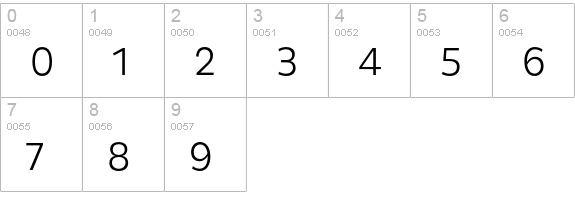
Pluto Sans Cond Light is a refined, elegant, condensed-width variant in the Pluto typeface family \xE2\x80\x94 well suited to elegant body text, refined sub-headings, and luxury branding.
Pluto Sans Cond Light font is a modern and sleek typeface that exudes elegance and sophistication. Its clean lines and minimalistic design make it perfect for a wide range of projects, from branding and advertising to editorial and web design. This versatile font is ideal for creating a clean and contemporary look, with its light weight adding a touch of airiness and sophistication to any layout. Whether you're designing a logo, a website, or a brochure, Pluto Sans Cond Light font will bring a sense of style and professionalism to your work. Best of all, Pluto Sans Cond Light font is available for free download at FontsMarket.com. So you can start using this beautiful typeface in your projects right away, without having to worry about any additional costs. Download Pluto Sans Cond Light font today and elevate your designs with its modern and elegant aesthetic.